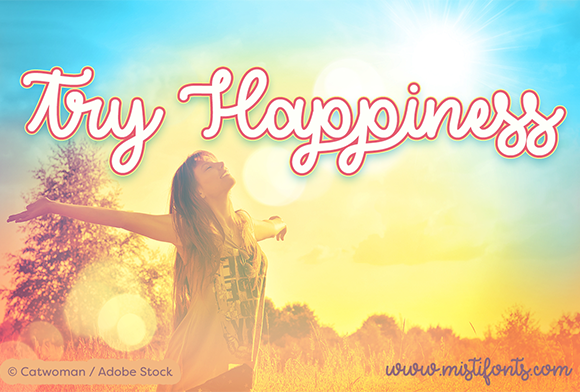
Try Happiness Font
About Try Happiness Font
Try Happiness is a stylish, monoline script that is perfect for your design and craft projects!
Try Happiness includes 235 glyphs (including uppercase, lowercase, numbers, and punctuation). Lots of language support (covers most European languages).